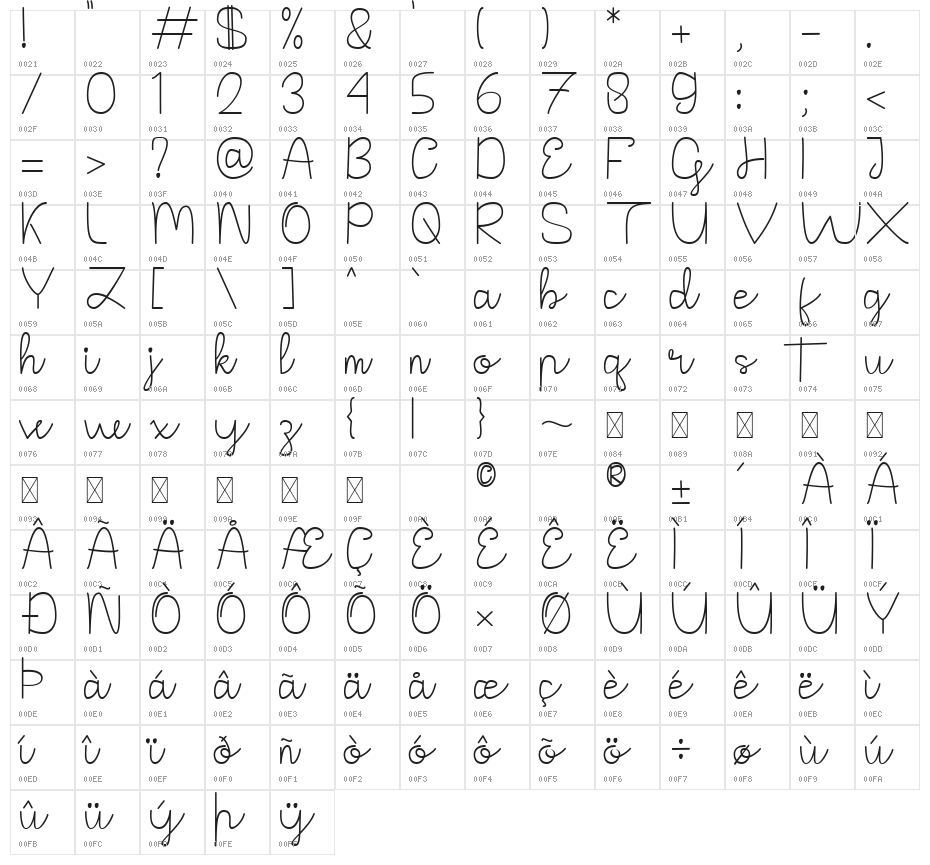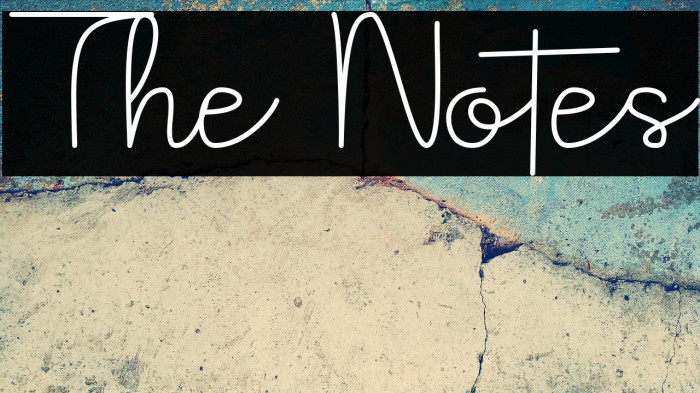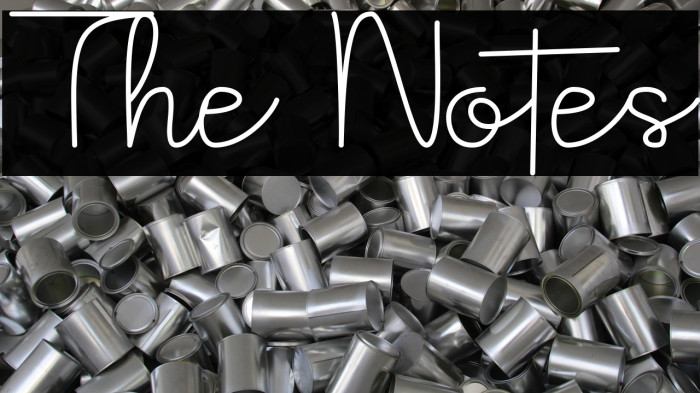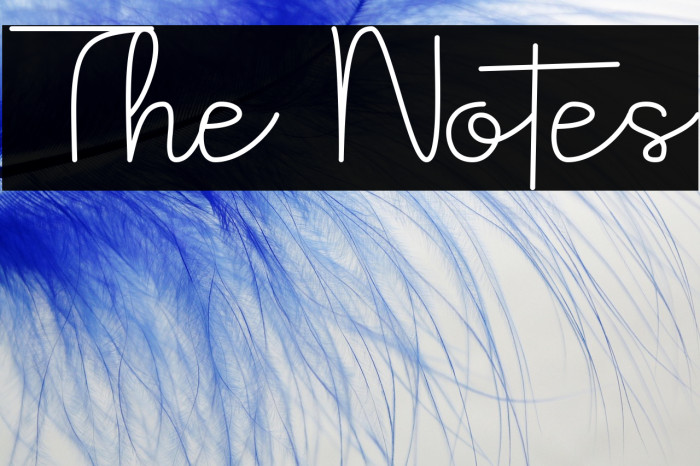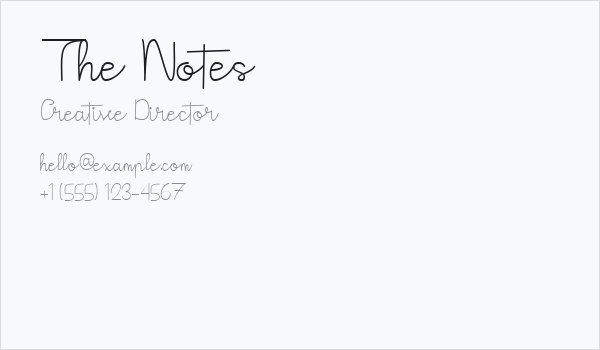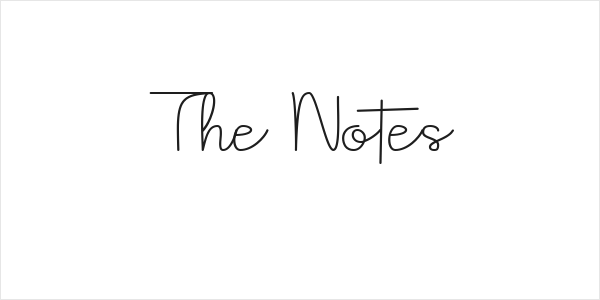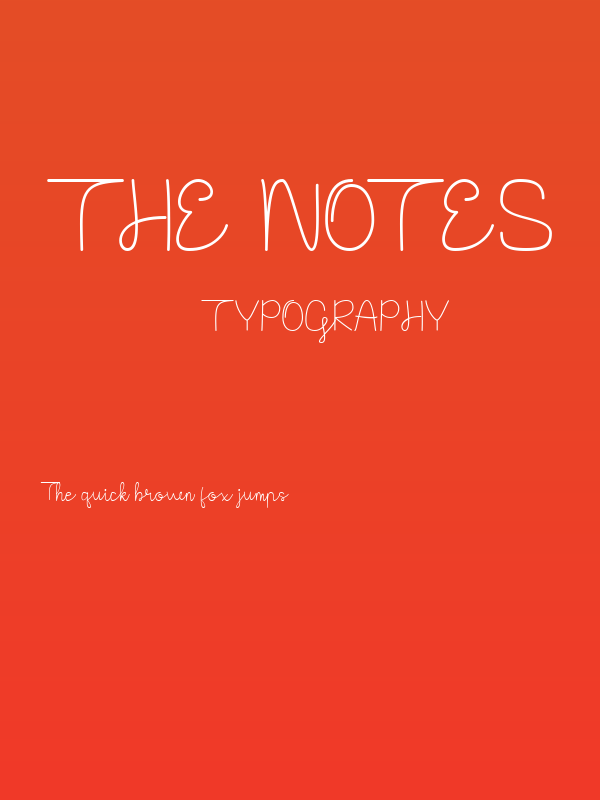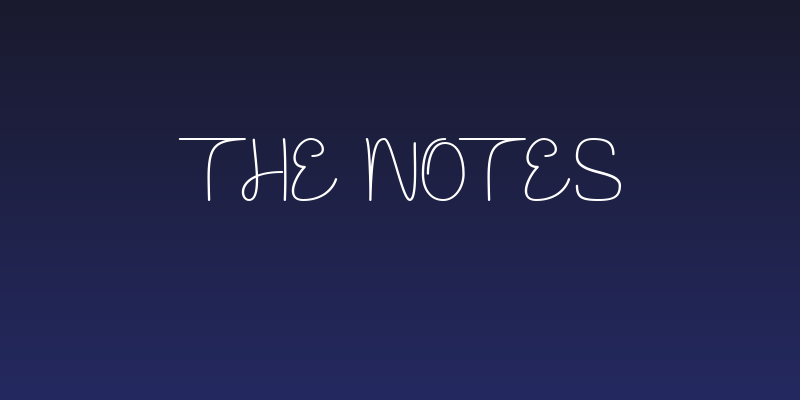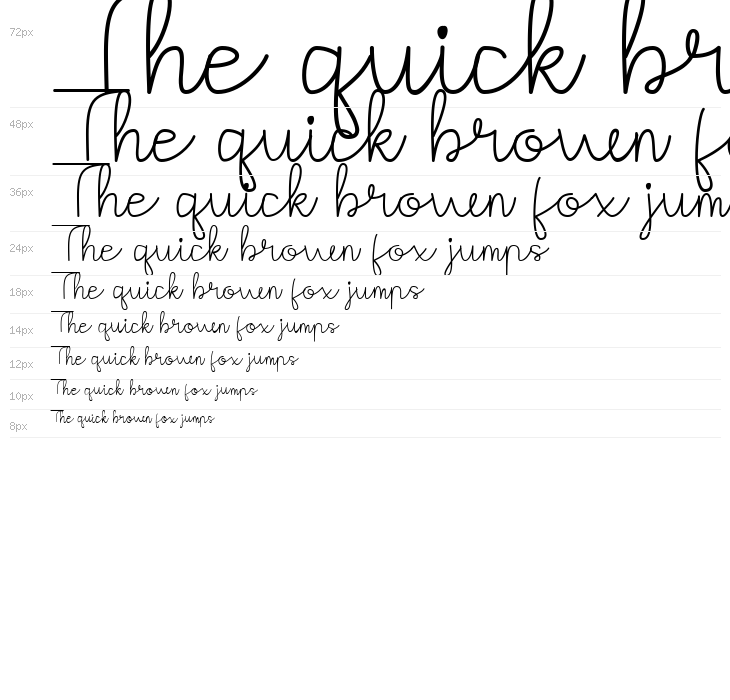
The Notes Font
The Notes Description
This font features a playful and casual handwritten style, characterized by its smooth, flowing lines and slightly irregular letterforms. The uppercase letters are tall and narrow, with a whimsical touch that adds personality. The lowercase letters maintain a consistent flow, enhancing the handwritten feel. Numbers and special characters are designed to match the overall style, with a slightly rounded appearance that complements the letters. This font is ideal for projects that require a personal and approachable touch, such as invitations, greeting cards, and informal branding.
| Overall Style | Casual, Playful |
| Use Case | Headlines, Informal text, Personal projects |
| Proposed Projects | Ideal for invitations, greeting cards, personal branding, and informal designs. |